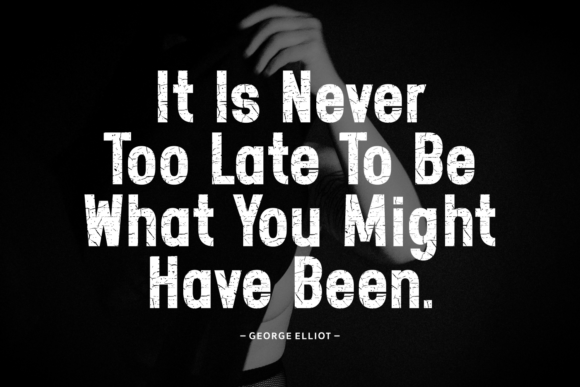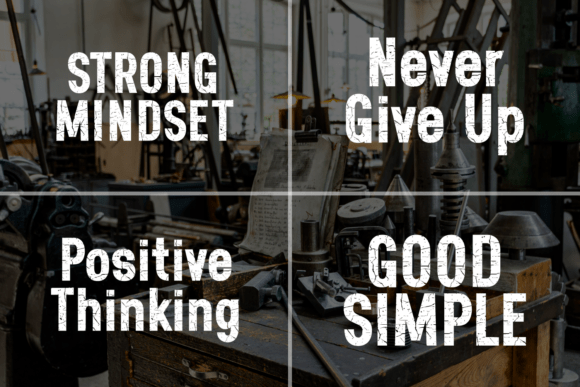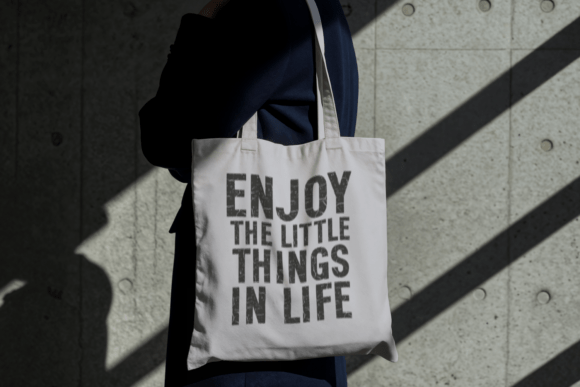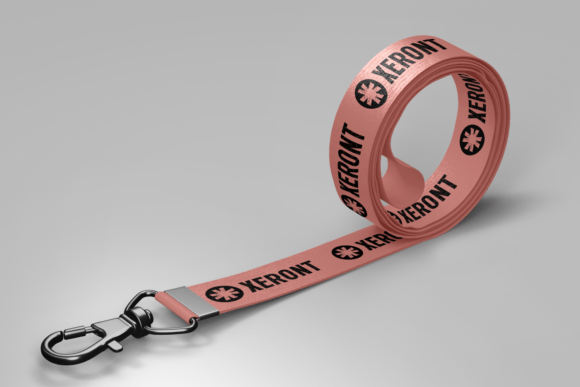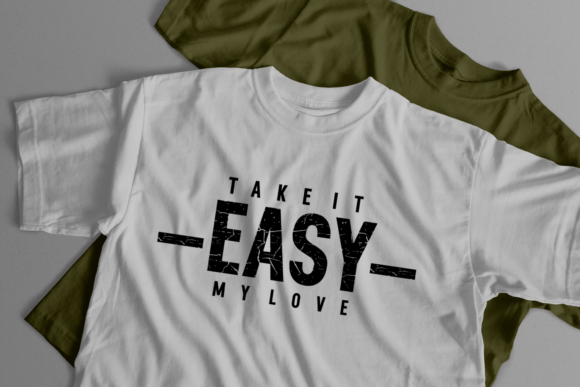
Introduction to Kemaxi Vintage Font Font
Fonts play a crucial role in design, and the Kemaxi Vintage Font font is a typeface that brings both character and versatility to any project. Whether you’re working on a branding project, a website, or a print design, the Kemaxi Vintage Font font offers a unique style that can elevate your work.
Kemaxi Vintage is a bold and rugged sans serif font with a distressed, cracked texture that evokes a strong industrial and retro vibe.
Perfect for vintage posters, urban branding, apparel, and product packaging, this font adds grit and character to any design .
Key Features of Kemaxi Vintage Font Font
Why Choose Kemaxi Vintage Font Font?
The Kemaxi Vintage Font font is more than just a typeface – it’s a design tool that helps you communicate your message with style and clarity. Its unique character set and versatile design make it suitable for a wide range of applications, from elegant invitations to bold headlines.
With its carefully crafted letterforms and balanced proportions, the Kemaxi Vintage Font font ensures readability and visual appeal across all mediums.
What makes Kemaxi Vintage Font font special?
The Kemaxi Vintage Font font stands out with its unique design, exceptional readability, and versatility across various design applications.